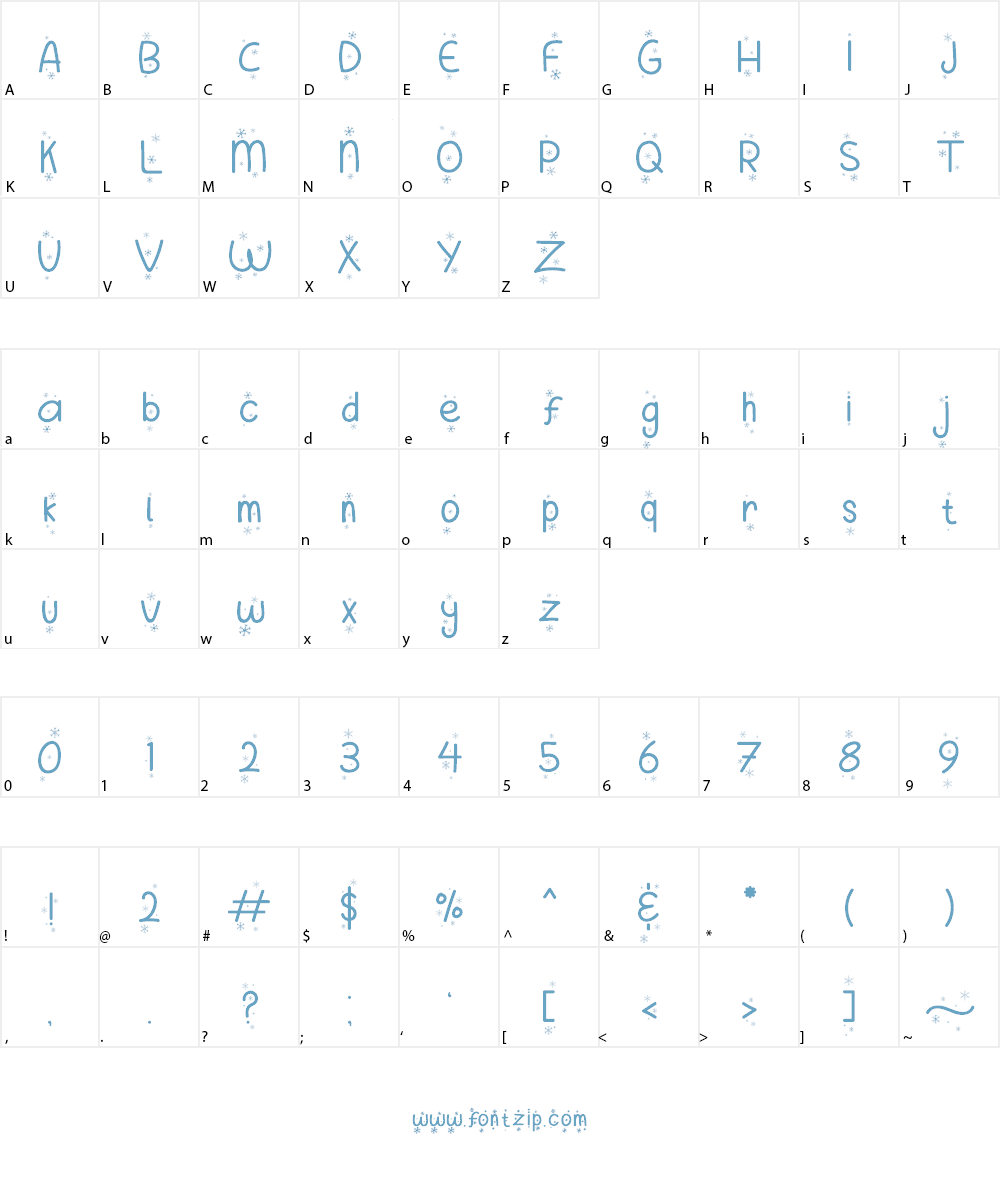
Merry Sugar is the winter season theme font!!
the stylish Snowflake is perfect for wonderful wintertime newsletters, handmade cards, scrapbook page titles, postcards, personalized stationery and more!